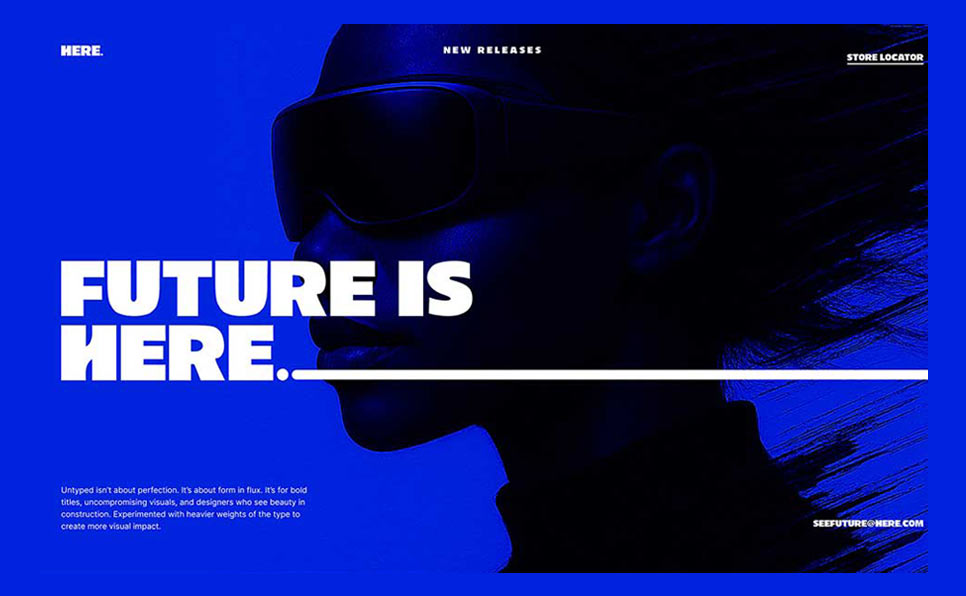
Best Typefaces for May 2025: 25 Fonts Designers Should Try This Month
Discover 25 of the best typefaces for May 2025, from bold display fonts to elegant serifs. Curated for modern designers looking to stay ahead of the trend.